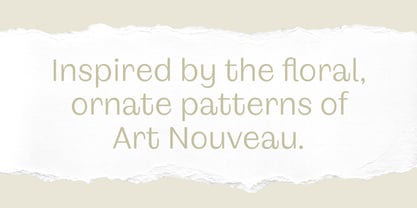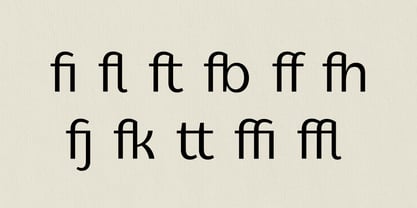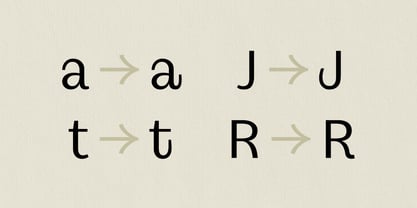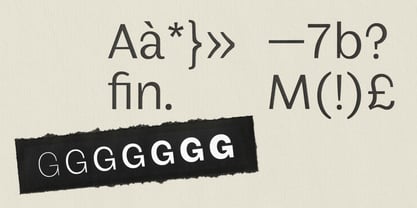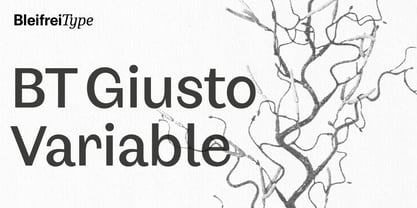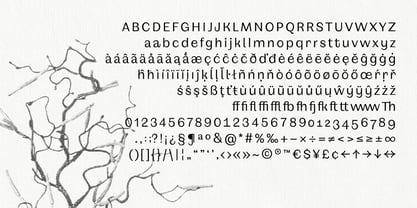
BT Giusto Variable
by Bleifrei Type
The BT Giusto Variable Font Family was designed by Aaron Aebi, Matthieu Dillier and published by Bleifrei Type. BT Giusto Variable contains 1 styles. More about this family
Tutto è giusto – everything is just right. This font captures the dolce vita and its longing moments. Imagine standing in the piazza with an ice cream in your hand, listening to the distant laughter of the street cafés. BT Giusto is a typeface that explores organic forms and combines them with the purity of a grotesque font. It is inspired by the floral and ornate patterns of Italian Art Nouveau – with an ever forward-looking view of contemporary and highly functional typography.
Designers: Aaron Aebi, Matthieu Dillier
Current Foundry: Bleifrei Type